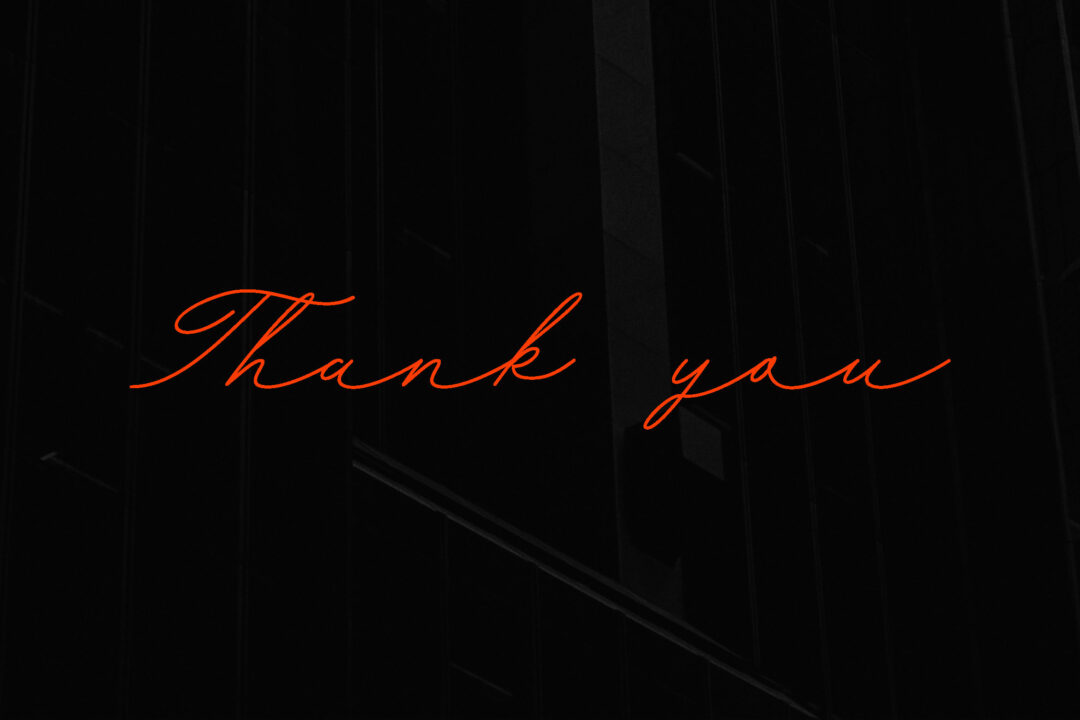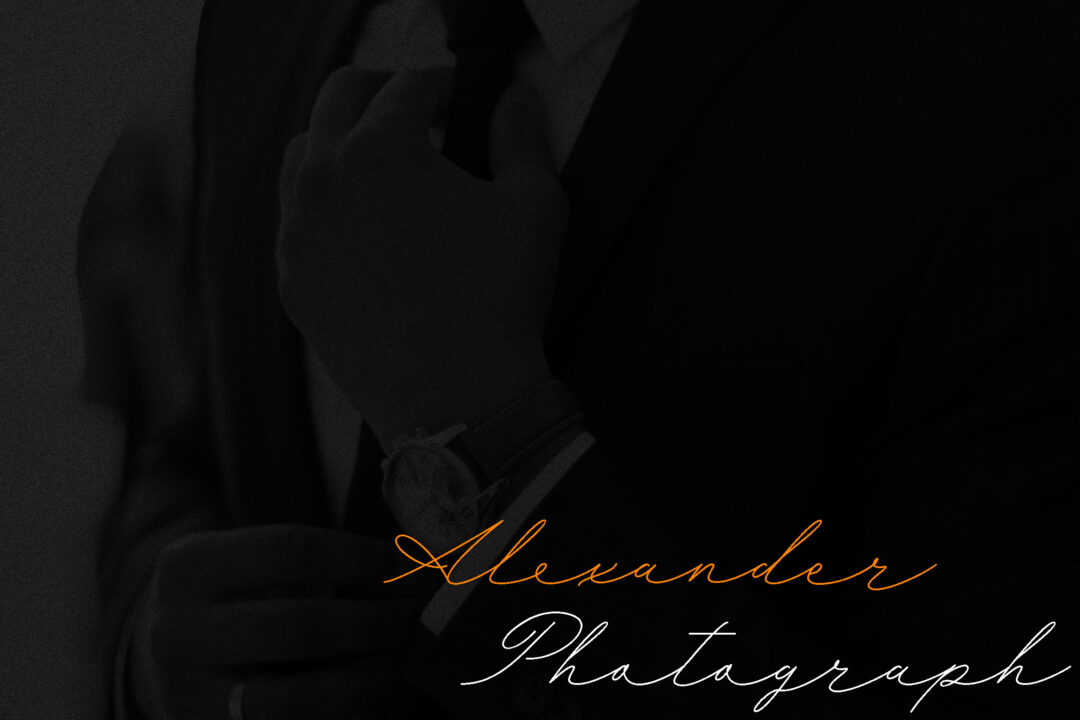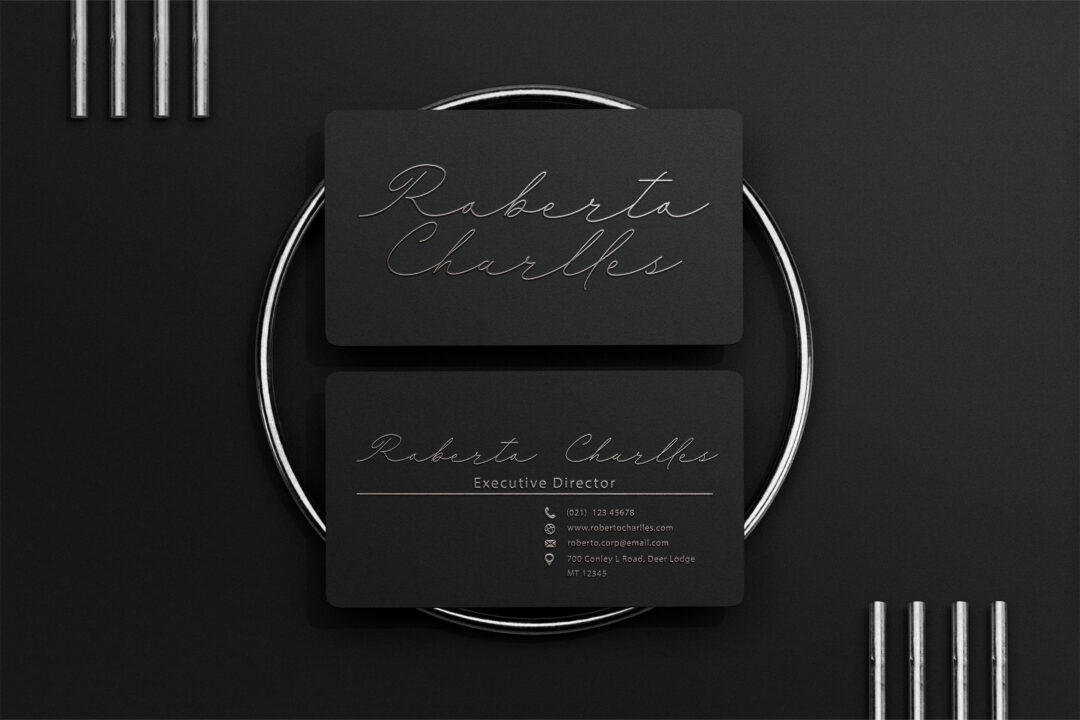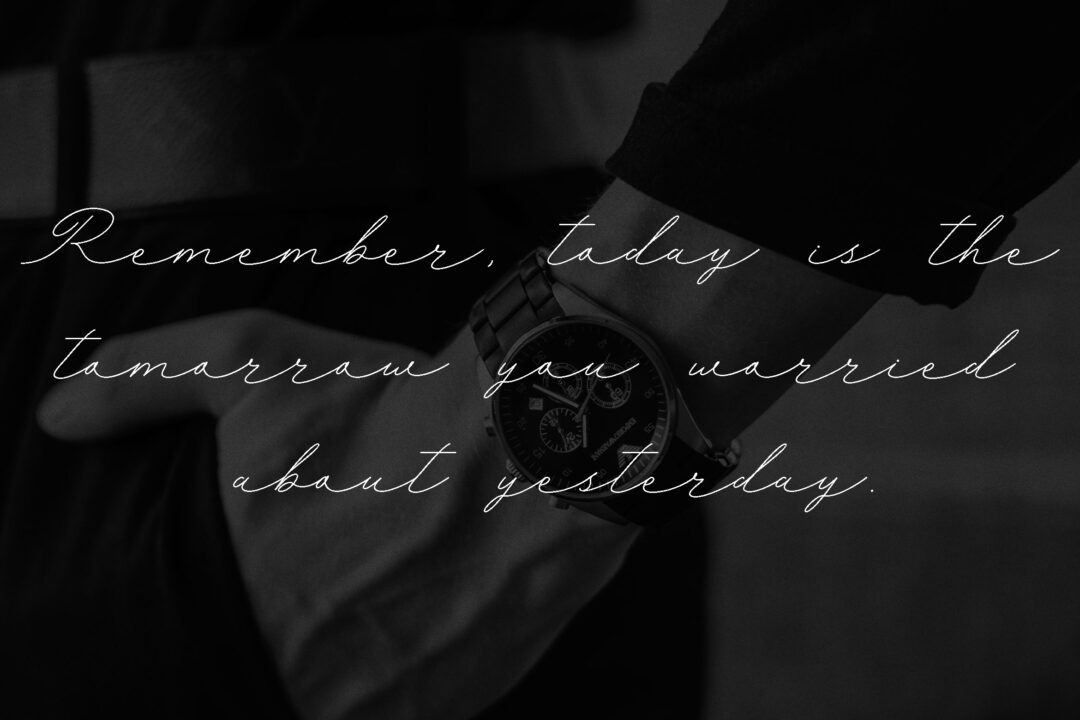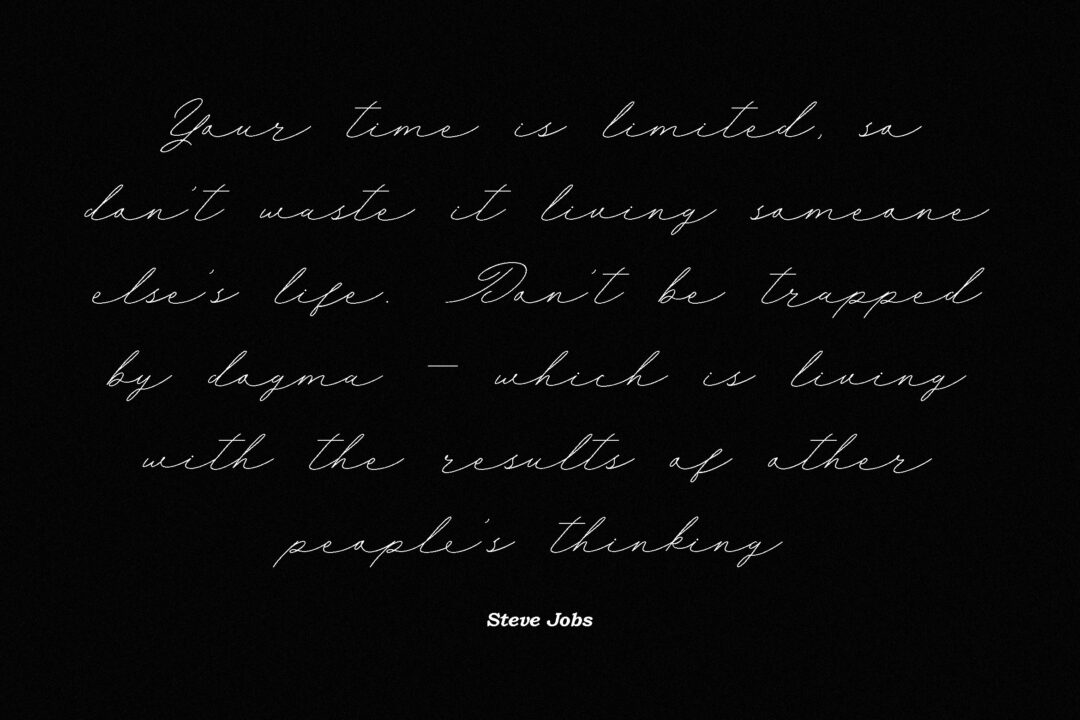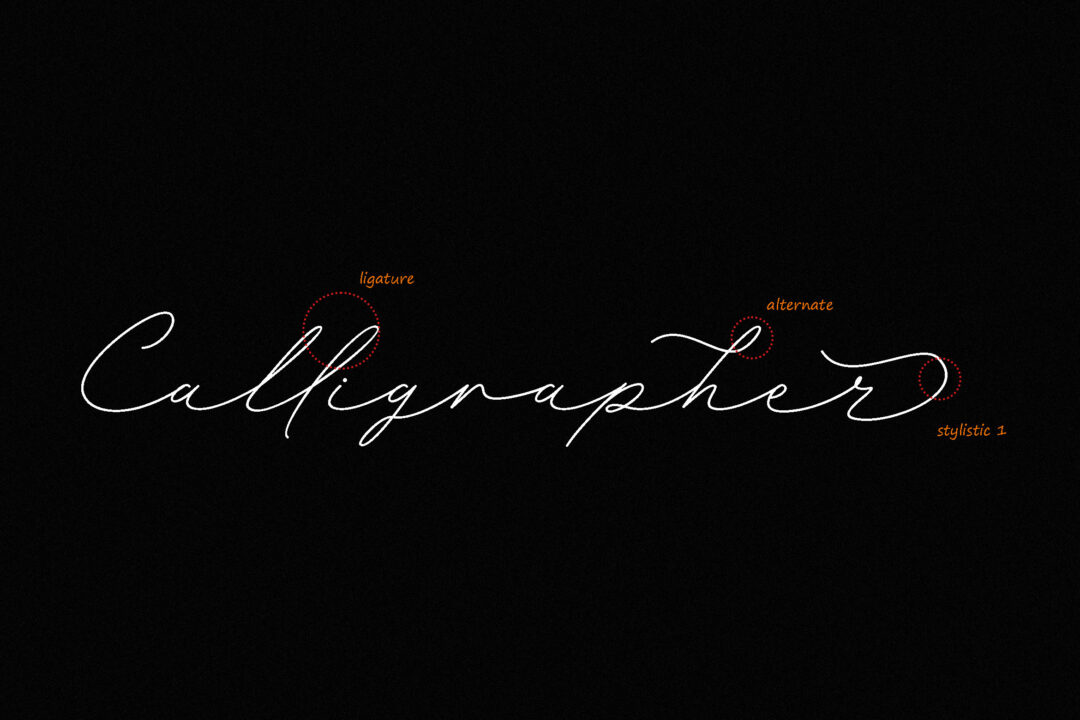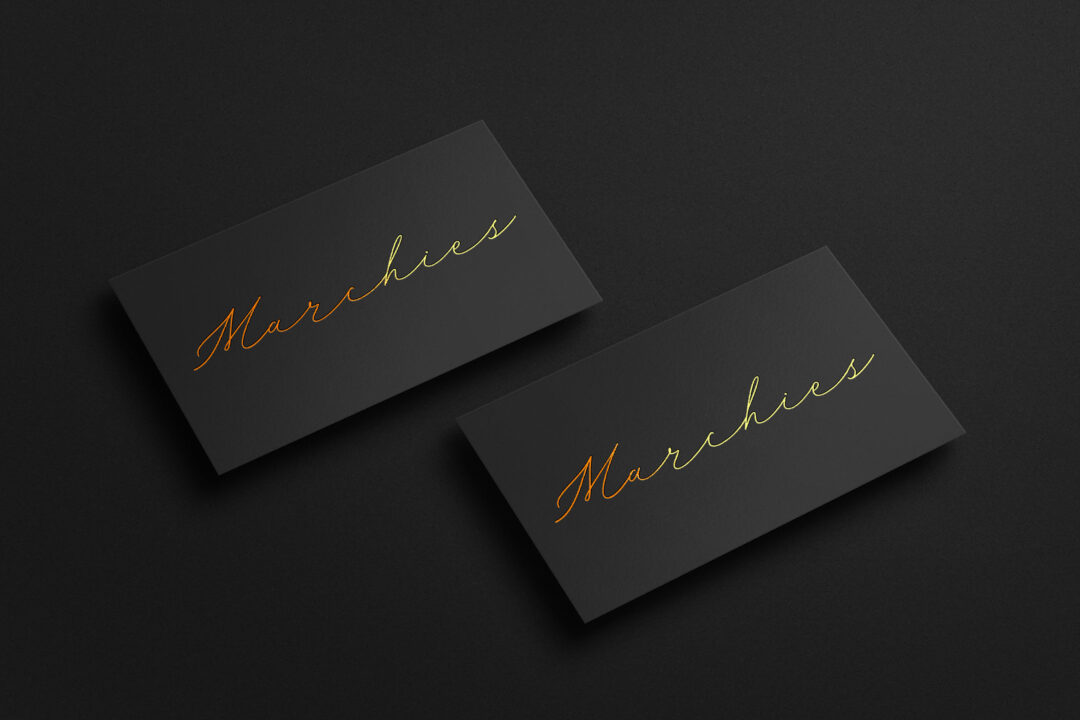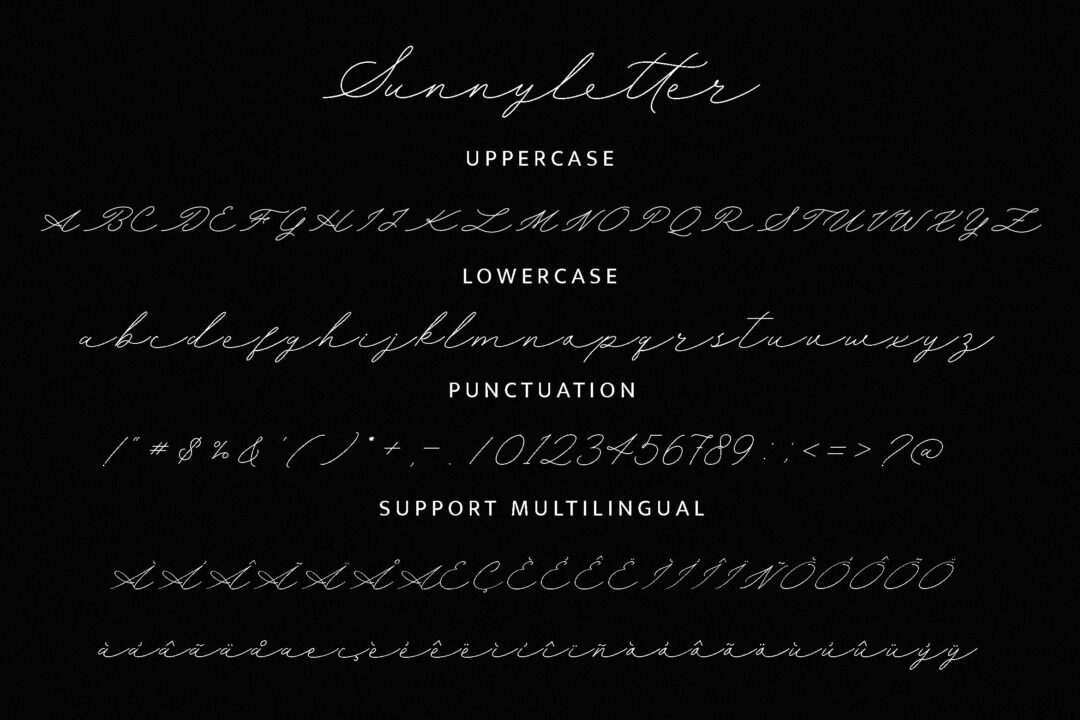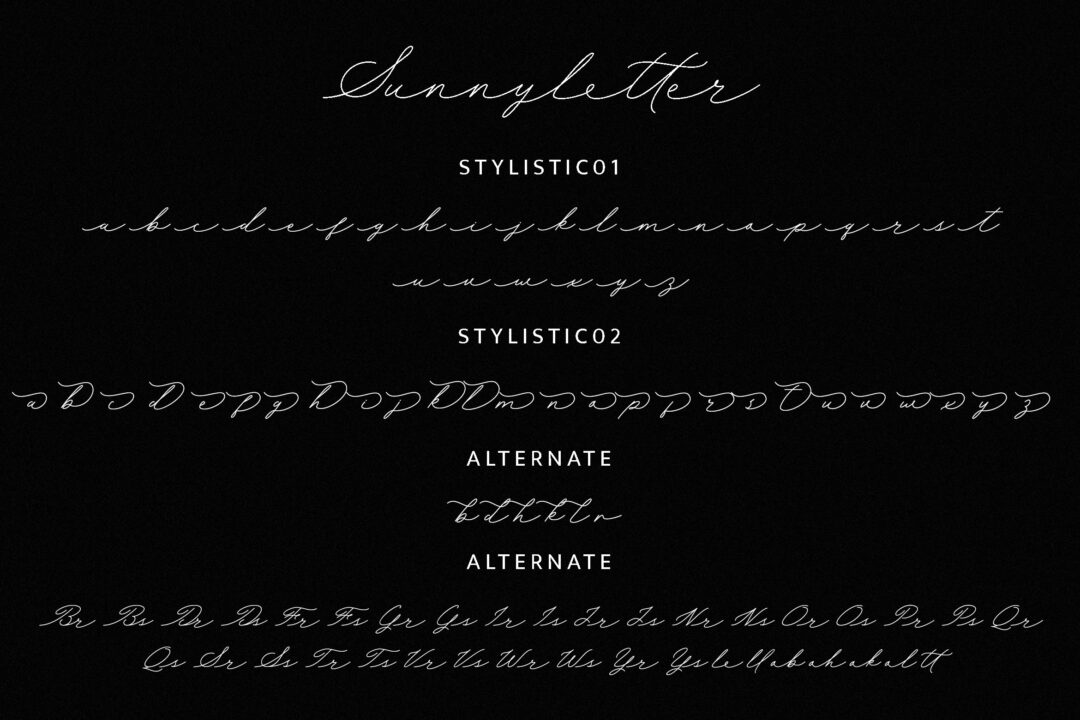
Sunnyletter is a beautifully designed script font with elegant details. Its sophisticated design makes it a valuable addition to your font collection, as it can elevate any design project. With PUA encoding, all its characters and decorative elements can be easily accessed, allowing for greater creative flexibility.
Sunnyletter